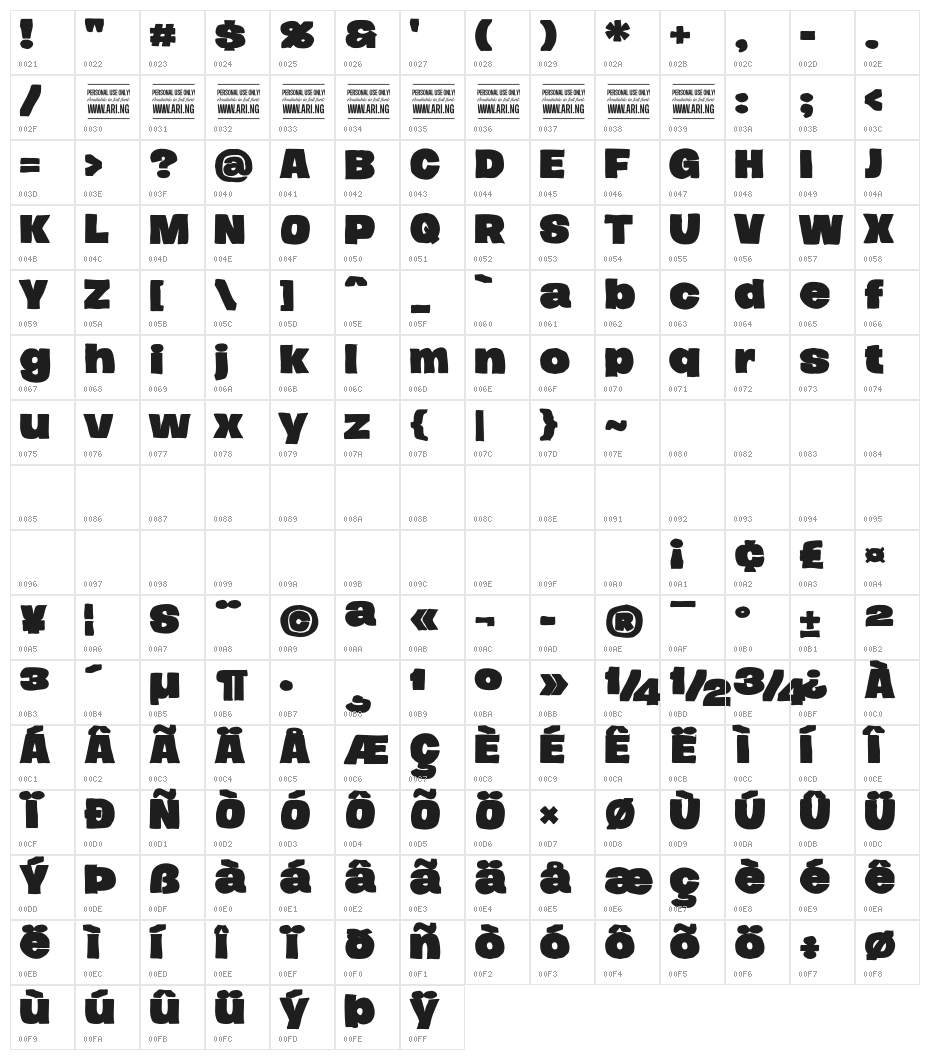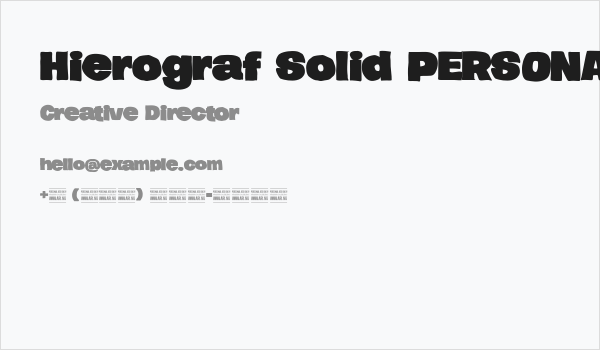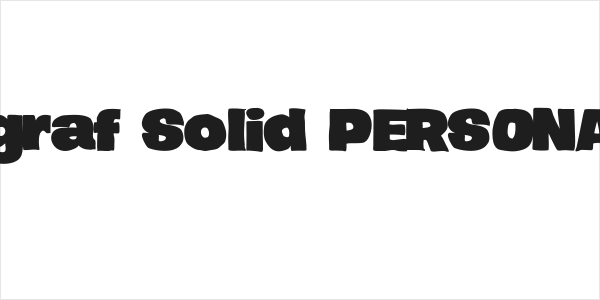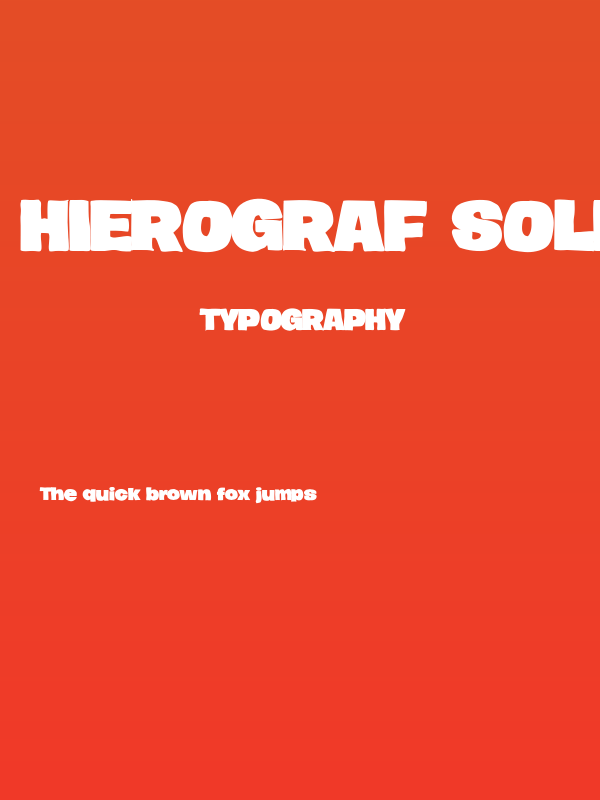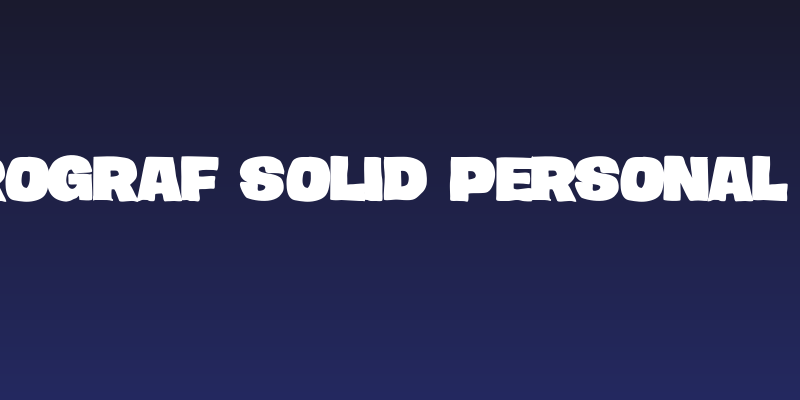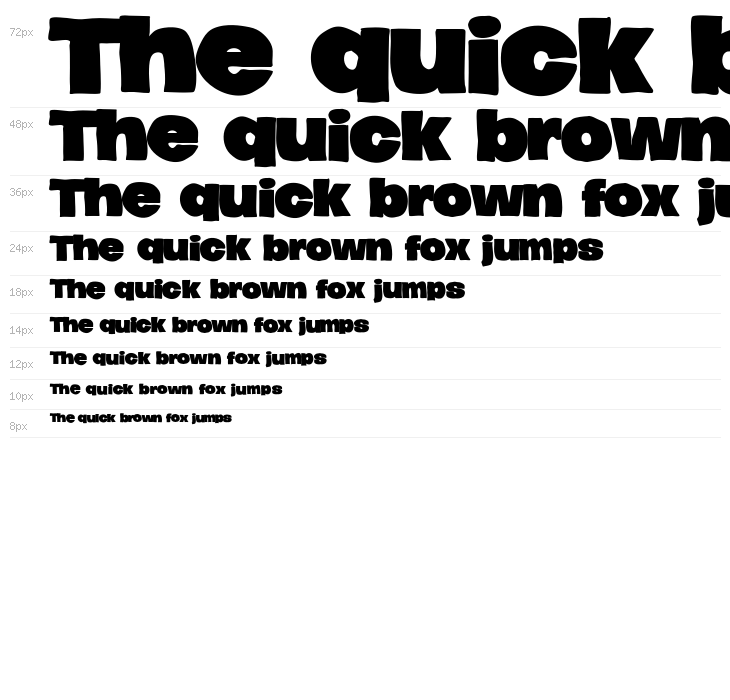
Hierograf Solid PERSONAL USE Font
Hierograf Solid PERSONAL USE Description
This font features a bold and impactful design with thick, solid strokes that create a strong visual presence. The characters are uniformly wide, giving them a blocky and robust appearance. The uppercase and lowercase letters maintain a consistent style, with rounded edges that soften the overall look. The numerals and special characters are designed to match the boldness of the alphabet, ensuring a cohesive appearance across all text. This font is ideal for making a statement, with its high visibility and striking design.
Proposed ProjectsIdeal for posters, headlines, branding, and any design requiring a strong visual impact.